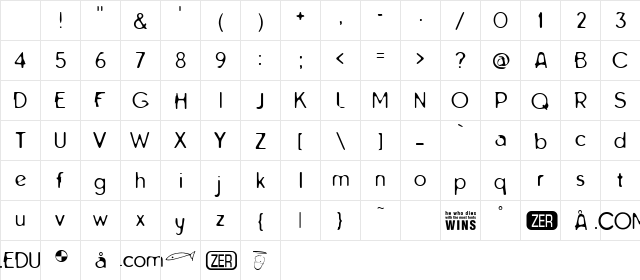
Complete Tarnished Halo Regular glyph index. Displaying only characters natively supported by Tarnished Halo Regular font.
Tarnished Halo is a composed and adaptable typeface that performs quietly and consistently across a wide range of design contexts.
Pro Tip: Use Tarnished Halo in both headline and body roles to test its range before committing to a single application.